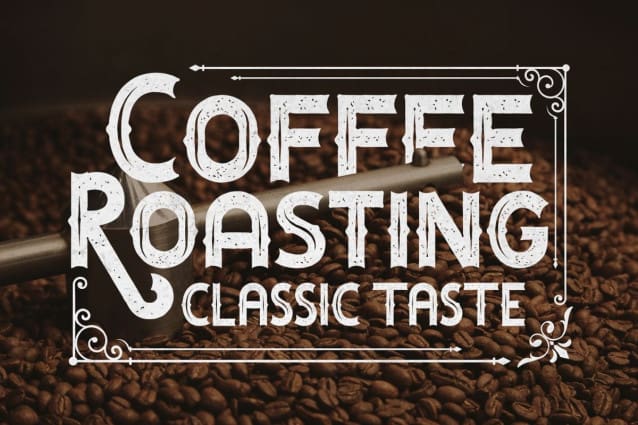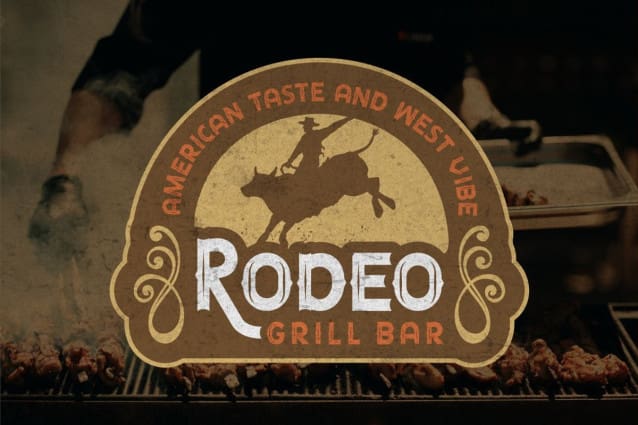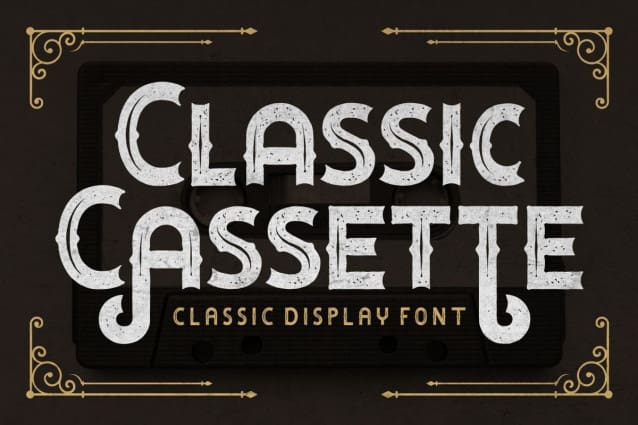
Classic Cassette Rough Font
Classic Cassette Rough Font – Classic Display Font. This font is inspired by the classic style and well display curves. Classic Cassette font makes for more fun, trendy and more lively. ClassicCassette has a surprise from alternate that will make your work even more beautiful.
Classic Cassette Rough Font is perfect for a professional touch which makes it even more unique display and classic themes. But it is also suitable for logos, branding, greeting cards, invitation cards, advertisements, titles, healines, book titles, stickers, packaging, quotes, posters, t-shirts/apparel, billboards and others.
The alternative characters were divided into several Open Type features such as Swash, Stylistic Sets, Stylistic Alternates, Contextual Alternates, and Ligature. The Open Type features can be accessed by using Open Type savvy programs such as Adobe Illustrator, Adobe InDesign, Adobe Photoshop Corel Draw X version, And Microsoft Word. ClassicCassette is also support multi language.